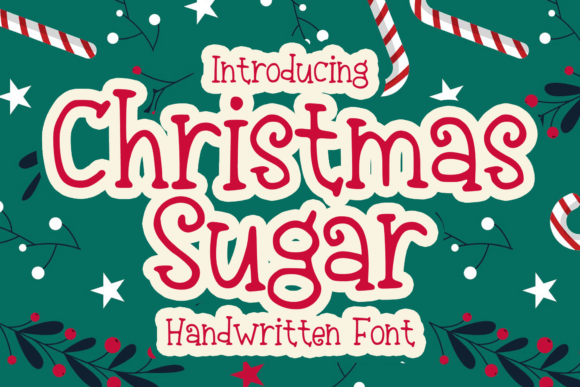
Christmas Sugar Font: The Ultimate Festive Typeface for Your Designs
Are you looking for a font that can add a touch of festive spirit to your designs? Look no further than the Christmas Sugar Font! This playful, handwritten typeface is perfect for infusing your projects with a fun and playful vibe, making it ideal for various design themes, from Christmas to Easter, school projects, and beyond.
What Makes Christmas Sugar Font So Special?
- Playful and Handwritten: The Christmas Sugar Font boasts a unique, handwritten style that adds a personal touch to your designs.
- Versatile: This font is perfect for a wide range of design projects, from festive stickers and t-shirt prints to logo concepts, magazine covers, and more.
- Captivating Character: The Christmas Sugar Font has a captivating character that elevates your designs, making them stand out from the crowd.
Exploring the Potential of Christmas Sugar Font
The Christmas Sugar Font is a versatile typeface that can be used in various design elements, including:
- Vibrant Stickers: Add a festive touch to your stickers with the Christmas Sugar Font, perfect for holiday-themed designs or fun party decorations.
- Trendy T-Shirt Prints: Create eye-catching t-shirt designs with the Christmas Sugar Font, ideal for holiday-themed apparel or fun casual wear.
- Stunning Logo Concepts: Use the Christmas Sugar Font to create unique and memorable logo concepts for your business or brand.
- Expressive Magazine or Book Covers: Add a touch of personality to your magazine or book covers with the Christmas Sugar Font, perfect for holiday-themed publications or fun and playful designs.
- Whimsical Comic Book Sketches: Bring your comic book sketches to life with the Christmas Sugar Font, adding a fun and playful touch to your illustrations.
- Daily Typing Tasks: Use the Christmas Sugar Font for daily typing tasks, such as writing letters or creating fun and playful documents.
Why Choose Christmas Sugar Font?
The Christmas Sugar Font is a game-changer for designers and creatives, offering a range of benefits, including:
- Unique and Playful Style: The Christmas Sugar Font adds a cool, unique touch to your designs, setting them apart from the crowd.
- Easy to Use: This font is easy to use and integrate into your designs, making it perfect for designers of all levels.
- Festive Spirit: The Christmas Sugar Font infuses your designs with a festive spirit, perfect for holiday-themed projects or fun and playful designs.
Tips and Tricks for Using Christmas Sugar Font
Here are some tips and tricks for getting the most out of the Christmas Sugar Font:
- Experiment with Colors: Try pairing the Christmas Sugar Font with different colors to create unique and eye-catching designs.
- Mix and Match: Combine the Christmas Sugar Font with other fonts or design elements to create interesting and dynamic designs.
- Play with Size and Style: Experiment with different font sizes and styles to add visual interest to your designs.
The Christmas Sugar Font is a versatile and playful typeface that can add a touch of festive spirit to your designs. With its unique and handwritten style, this font is perfect for a wide range of design projects, from festive stickers and t-shirt prints to logo concepts and magazine covers. Whether you’re a designer, artist, or simply a creative, the Christmas Sugar Font is a game-changer that can help you create fun and playful designs that stand out from the crowd.